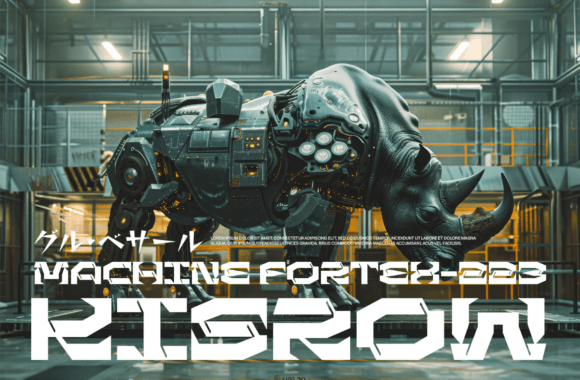
Introducing Grexon Font: A Bold and Futuristic Typeface
In the world of typography, fonts play a crucial role in conveying the tone and aesthetic of a design project. With the ever-growing demand for unique and impactful visual content, designers and developers are constantly on the lookout for innovative and versatile typefaces. One such font that has been making waves in the design community is Grexon, a bold, decorative techno-style font that is characterized by its strong, futuristic design.
What is Grexon Font?
Grexon is a modern, geometric typeface that is designed to make a statement. Its thick, solid strokes make it highly suitable for titles and headlines, ensuring a powerful visual impact that grabs the attention of the viewer. The font’s geometric and angular elements give it a modern, high-tech feel, making it ideal for projects that require a bold, dynamic aesthetic.
Key Features of Grexon Font
- Bold and Decorative: Grexon is a bold, decorative font that is designed to make a statement. Its thick, solid strokes ensure a powerful visual impact, making it perfect for titles and headlines.
- Geometric and Angular: The font’s geometric and angular elements give it a modern, high-tech feel, making it ideal for projects that require a bold, dynamic aesthetic.
- Futuristic Design: Grexon has a futuristic design that is characterized by its strong, solid strokes and geometric elements.
- Highly Versatile: Grexon is a highly versatile font that can be used in a variety of design projects, from digital and sci-fi to technology-related designs.
Use Cases for Grexon Font
Grexon is a highly versatile font that can be used in a variety of design projects. Here are some use cases where Grexon can make a significant impact:
- Digital Designs: Grexon is perfect for digital designs, such as website headers, social media graphics, and mobile app interfaces.
- Sci-Fi and Technology-Related Designs: The font’s futuristic design makes it ideal for sci-fi and technology-related designs, such as movie posters, video game titles, and tech product branding.
- Headlines and Titles: Grexon is highly suitable for headlines and titles, ensuring a powerful visual impact that grabs the attention of the viewer.
- Branding and Advertising: Grexon can be used in branding and advertising projects, such as logos, billboards, and magazine ads.
Benefits of Using Grexon Font
Using Grexon font in your design projects can have several benefits. Here are some of the advantages of using Grexon:
- Unique and Impactful: Grexon is a unique and impactful font that can help your design project stand out from the crowd.
- Modern and Futuristic: The font’s modern and futuristic design makes it perfect for projects that require a bold, dynamic aesthetic.
- Highly Versatile: Grexon is a highly versatile font that can be used in a variety of design projects.
- Easy to Read: Despite its bold and decorative nature, Grexon is easy to read, making it perfect for titles and headlines.
How to Use Grexon Font
Using Grexon font in your design projects is easy. Here are some tips on how to use Grexon:
- Choose the Right Size: Grexon is a bold font, so it’s best to use it in larger sizes to make a statement.
- Pair it with Other Fonts: Grexon can be paired with other fonts to create a unique and visually appealing design.
- Experiment with Colors: Grexon can be used in a variety of colors, so experiment with different colors to find the one that works best for your design project.
In conclusion, Grexon is a bold, decorative techno-style font that is characterized by its strong, futuristic design. Its thick, solid strokes make it highly suitable for titles and headlines, ensuring a powerful visual impact. The font’s geometric and angular elements give it a modern, high-tech feel, making it ideal for projects that require a bold, dynamic aesthetic. With its versatility and ease of use, Grexon is a great addition to any design project.
- What is Grexon font? Grexon is a bold, decorative techno-style font characterized by its strong, futuristic design.
- What is Grexon font used for? Grexon is used for titles and headlines, and is ideal for projects that require a bold, dynamic aesthetic.
- Is Grexon font easy to read? Yes, despite its bold and decorative nature, Grexon is easy to read, making it perfect for titles and headlines.